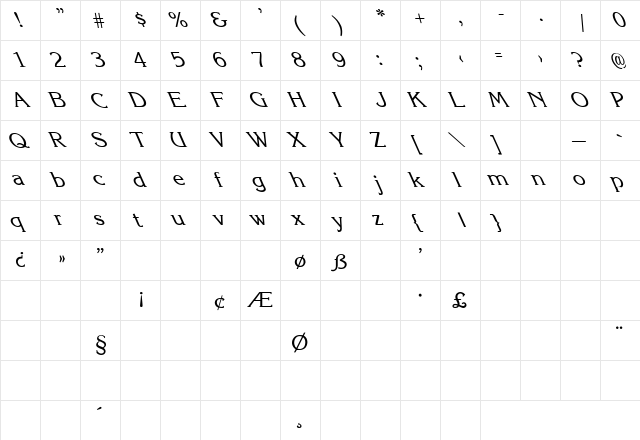
Korina-Light Leftie Regular
Design Context for Korina-Light Leftie Typeface
Korina-Light Leftie offers clean, dependable letterforms without strong stylistic allegiance, making it a practical choice for designers who need flexibility. The delicate stroke weight brings airiness and refinement to layouts.
Pro Tip: Use Korina-Light Leftie in both headline and body roles to test its range before committing to a single application.